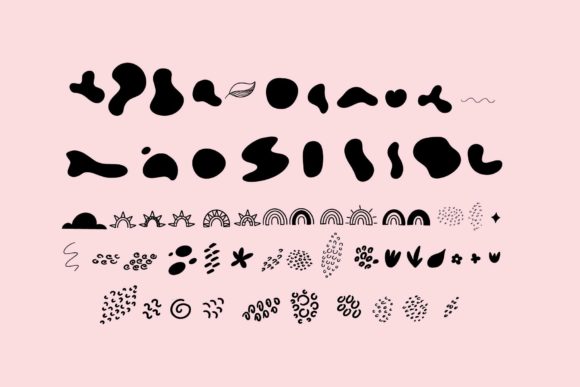
Dingbats Abstract Font
About Dingbats Abstract Font
Absolutely! “Dingbats Abstract” is a cool and unique dingbats font that can be a valuable asset to your fonts’ library. With its abstract and artistic design, this font has the potential to elevate any creation and add a touch of creativity to your projects.
The abstract nature of “Dingbats Abstract” makes it versatile and suitable for a wide range of topics and design purposes. Whether you’re working on digital designs, print materials, presentations, or any other creative project, this font will bring a unique and artistic flair to your work.
The distinctive shapes and patterns in “Dingbats Abstract” allow you to create visually interesting compositions and add an element of intrigue to your designs. Each glyph in the font represents an abstract form or pattern, providing you with a diverse range of design elements to play with.
You can use “Dingbats Abstract” to enhance your designs in various ways. It can be used as decorative elements, borders, or even as standalone icons or illustrations. The abstract nature of the font allows for imaginative interpretations, giving you the freedom to experiment and create unique compositions.
Additionally, the unique design of “Dingbats Abstract” makes it suitable for both digital and print applications. Whether you’re creating website graphics, social media posts, posters, brochures, or any other visual content, this font will add a touch of creativity and make your designs visually compelling.
The potential uses for “Dingbats Abstract” are endless. You can incorporate it into branding projects, logo designs, packaging, or even as decorative elements in art projects. Its versatility and abstract aesthetic make it a valuable tool in your creative toolkit.
In conclusion, “Dingbats Abstract” is a cool and unique dingbats font that has the potential to elevate any creation. Its abstract and artistic design allows for endless creative possibilities and makes it suitable for a wide range of topics and design purposes. So go ahead and add “Dingbats Abstract” to your fonts’ library and unlock its potential to enhance your designs and captivate your audience!